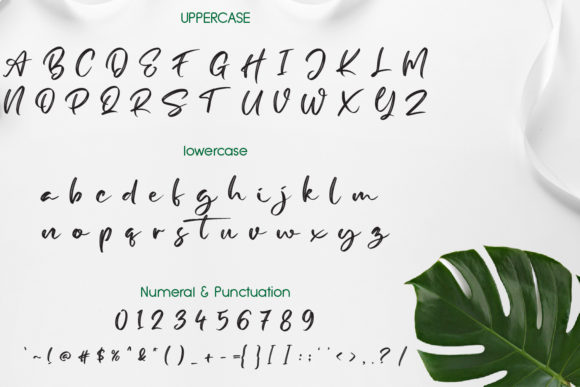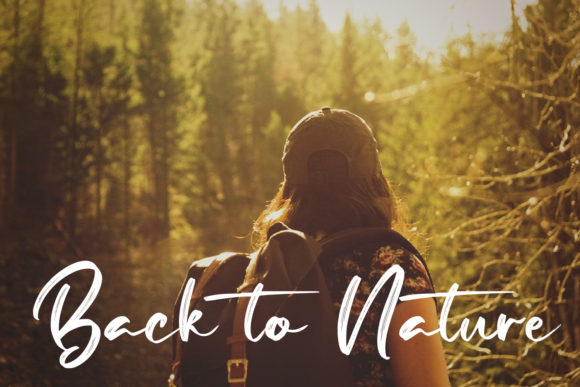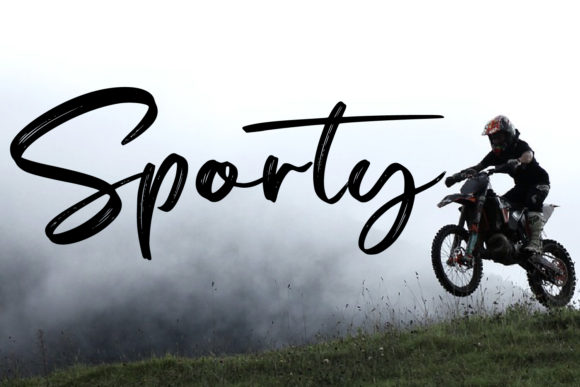
Discover the Charm of Broome Font: A Minimal Brush Style Handwritten Font
In the world of typography, fonts play a crucial role in conveying the tone and aesthetic of a design. For crafters and designers looking for a unique and elegant touch, the Broome Font is an excellent choice. This minimal brush style handwritten font is simple, easy to use, and incredibly versatile, making it perfect for a wide range of craft designs.
What is Broome Font?
Broome is a carefully crafted font that embodies the essence of minimalist design while offering a distinctive handwritten feel. Its brush style strokes bring a sense of warmth and personality to any project, setting it apart from more traditional fonts. The simplicity of Broome Font is its greatest strength, allowing it to seamlessly integrate with various design elements without overpowering them.
Key Features of Broome Font
- Minimalist Design: Broome Font boasts a clean and uncluttered design that makes it perfect for a variety of applications, from digital media to print materials.
- Brush Style Handwritten: The font’s brush style gives it a unique, handcrafted feel that adds a personal touch to designs.
- Versatile: Whether you’re working on a logo, a greeting card, or a digital graphic, Broome Font adapts beautifully to different contexts.
How to Use Broome Font in Your Designs
One of the best things about Broome Font is its versatility. Here are some ideas on how to incorporate it into your craft designs:
- Pair with Bold Colors: Combine Broome Font with vibrant colors to create eye-catching posters or social media graphics.
- Mix with Patterns: Add texture and interest to your designs by pairing the font with geometric patterns or watercolor backgrounds.
- Use in Logo Design: The unique style of Broome Font makes it an excellent choice for logos that need to stand out.
- Incorporate into Digital Products: From planners and journals to digital invitations, Broome Font can add a touch of elegance and sophistication.
Why Choose Broome Font?
In a sea of fonts, Broome stands out for its simplicity, elegance, and ease of use. Here are a few reasons why designers and crafters are falling in love with this font:
- Unique yet Simple: Broome Font offers the perfect balance between uniqueness and simplicity, making it versatile enough for a wide range of projects.
Broome Font is more than just a typeface; it’s a design tool that can elevate your craft projects to new heights. Its minimalist brush style handwritten aesthetic offers a fresh and modern look that’s sure to captivate your audience. Whether you’re a seasoned designer or a DIY crafter, Broome Font is an excellent addition to your typography arsenal. So why wait? Discover the charm of Broome Font today and bring a touch of elegance and simplicity to your designs.